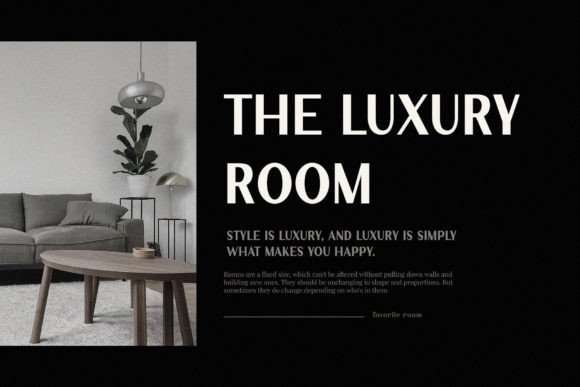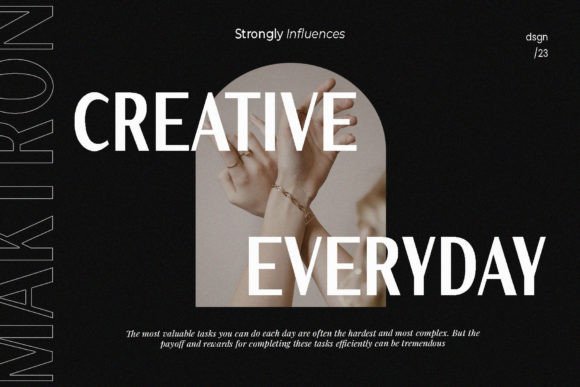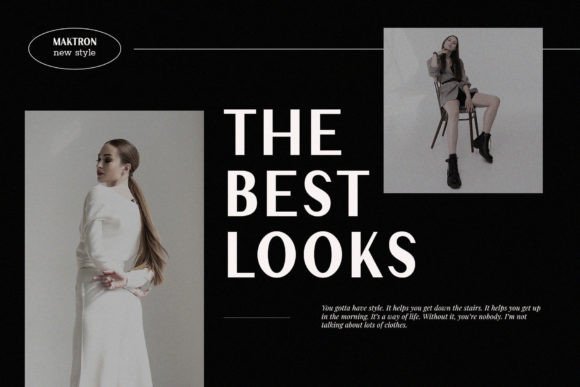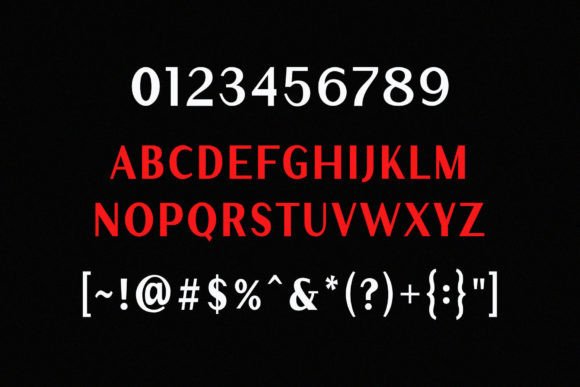
Introduction to Maktron Font
Have you ever stumbled upon the perfect font for a creative project, only to find yourself lost in a world of possibilities? That’s exactly what happens when you discover the Maktron Font – an elegant and bold serif font that will elevate your designs to new heights.
As designers, we’re always on the lookout for high-quality fonts that can bring our ideas to life. And Maktron Font is no exception. With its incredibly versatile style, it’s perfect for creating beautiful stationery art, eye-catching social media posts, and stunning wedding invitations. Plus, with a transparent background, you can easily layer it over any image or design element. The best part? You can download the Maktron Font for free, making it an invaluable design resource for any creative project.
Maktron Font
- High-quality design for creative projects: Maktron Font is designed to meet the demands of modern designers, offering a unique and stylish look for various applications.
- Transparent background: This font features a transparent background, allowing designers to easily layer it over other elements without any visual obstruction.
- High-resolution design: Maktron Font is designed at 300 DPI, ensuring crisp and clear text display even in high-resolution prints and digital applications.
- Unique characteristics: The font features a unique blend of modern and vintage elements, making it an excellent choice for designers looking to add a touch of elegance to their creative projects.
Honest Review: Maktron Font
I recently stumbled upon the Maktron Font, and I must say it’s been a great addition to my design resource library. This free download has been a game-changer for my creative projects.
- High quality and crisp typography
- Available in various font styles and weights
- Works seamlessly with transparent backgrounds
- Perfect for digital and print projects
The Maktron Font is incredibly versatile, making it suitable for a wide range of design applications. I’ve used it for logo designs, brochures, and even social media graphics.
- Not ideal for extreme text scaling
- Limited support for some operating systems
- Not as extensive as some commercial font options
Overall, I’m thoroughly impressed with the Maktron Font. It’s a great free resource that has saved me a lot of time and effort. While it may have some limitations, it’s definitely worth considering for your next creative project.
Maktron Font
The Maktron Font is a versatile, high-quality design resource ideal for creative projects. It can be used for a wide range of applications, from graphic design to digital art.
Tips for Getting the Most Out of Maktron Font
To get the most out of Maktron Font, experiment with different font sizes, colors, and combinations to create visually appealing designs.
The Maktron Font is commonly used for:
- Digital art
Alternatives to Maktron Font
2. Typewriter Font
Typewriter Font is a creative design resource for designers working on projects that require a vintage, nostalgic feel. This font is perfect for creating a sense of nostalgia in your design. It’s available for free download and can be used as a design element in various creative projects.
Typewriter Font is more suited for designs that require a distressed, worn look, unlike Maktron Font which is more modern and sleek. While Maktron Font is ideal for designs with transparent backgrounds, Typewriter Font excels in creating a sense of depth and texture.
Can I customize the Maktron Font to fit my design needs?
The Maktron Font is a highly customizable design resource, allowing designers to adjust its settings and parameters to suit their specific project requirements. With its advanced features and high-quality design, the Maktron Font is an ideal choice for designers looking to create unique and engaging visual content.